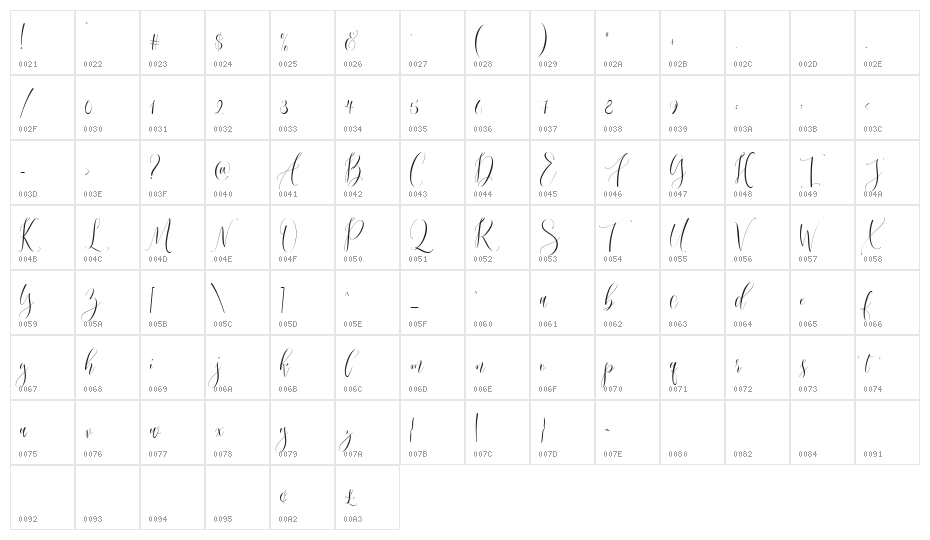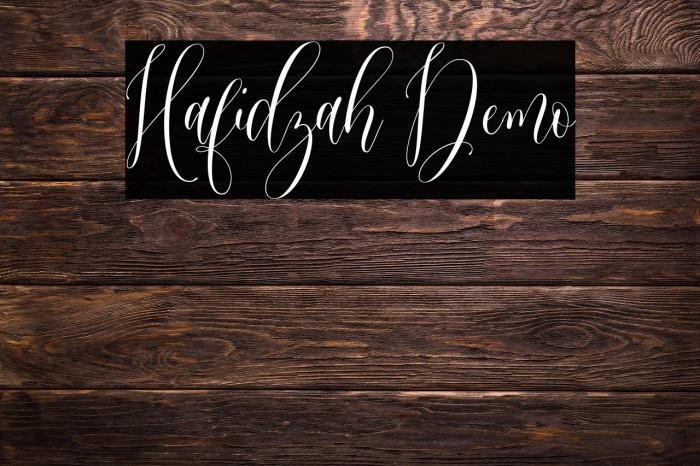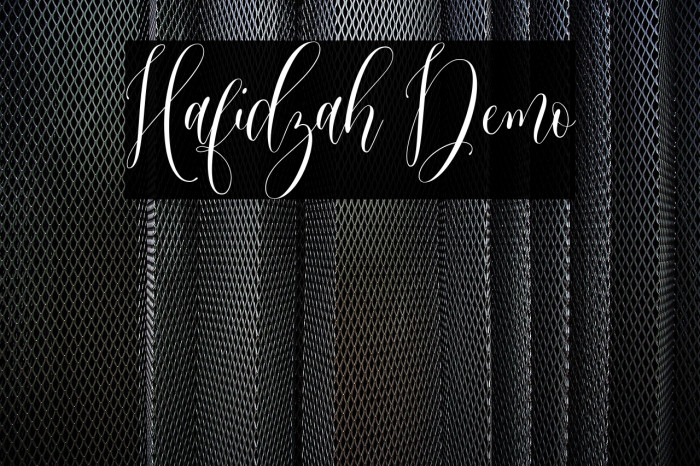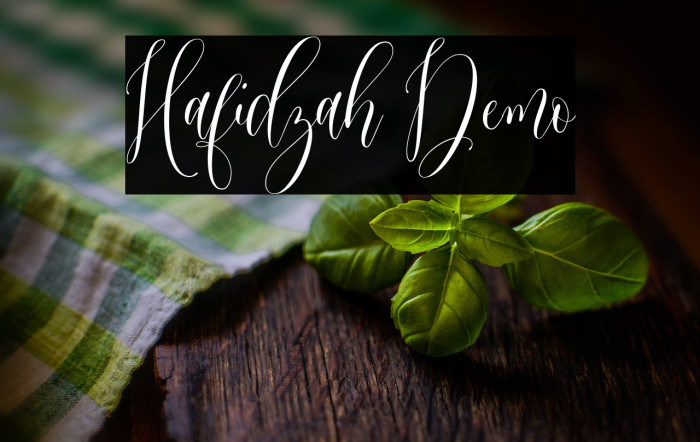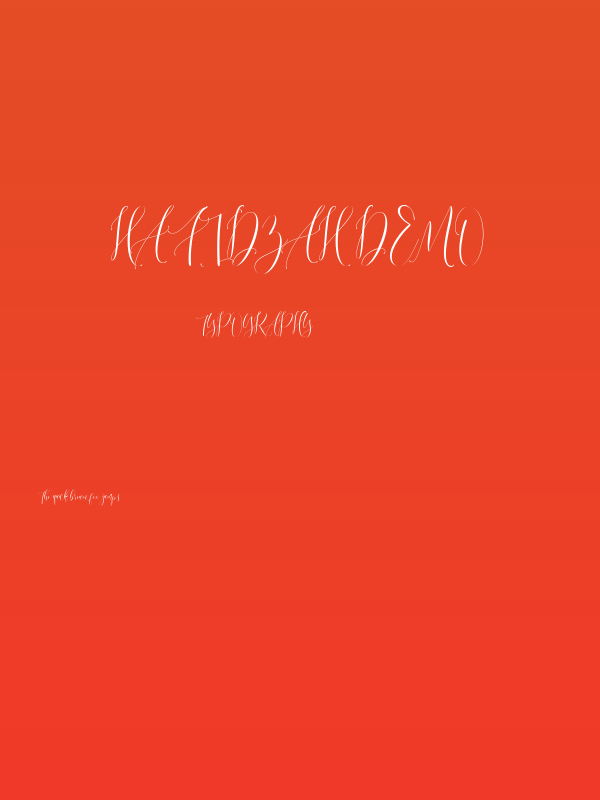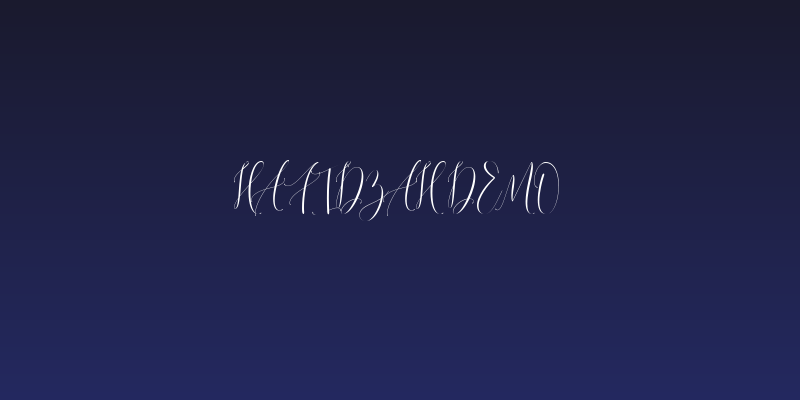
Hafidzah Demo Font
Hafidzah Demo Description
This elegant script font features a flowing, cursive style with intricate loops and swashes. The characters are connected, creating a seamless and fluid appearance. The uppercase letters are particularly ornate, with dramatic flourishes that extend beyond the baseline and cap height. The lowercase letters maintain a consistent rhythm, with gentle curves and delicate strokes. The numerals and special characters are designed to match the overall aesthetic, adding to the font's cohesive look. This font exudes a sense of sophistication and grace, making it ideal for formal and decorative applications.
| Proposed Projects | Ideal for wedding invitations, elegant branding, greeting cards, and luxury packaging. |